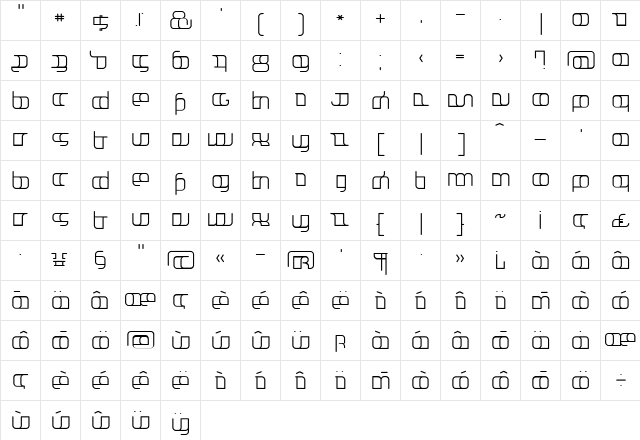
Jakone Regular
Design Context for Jakone Typeface
Jakone takes a measured approach to typography — its balanced proportions and neutral character make it a reliable workhorse for both digital and print work.